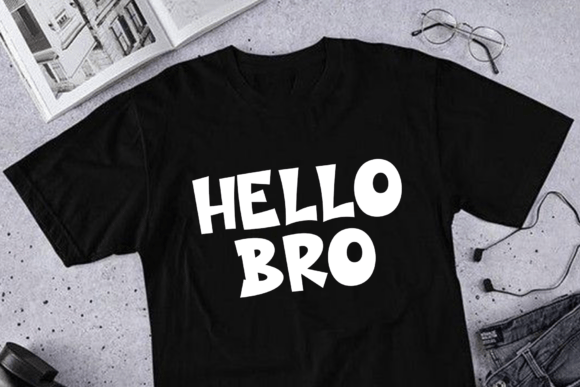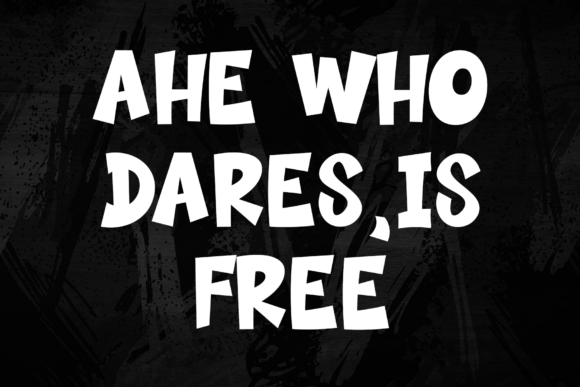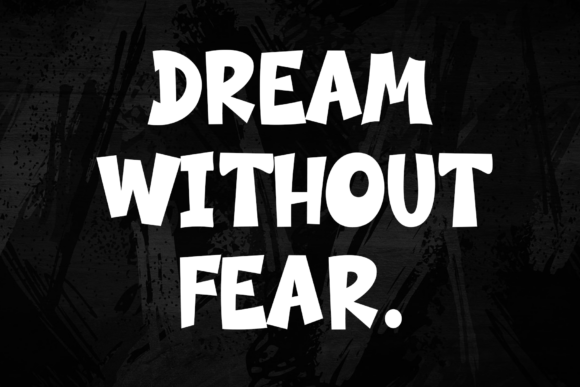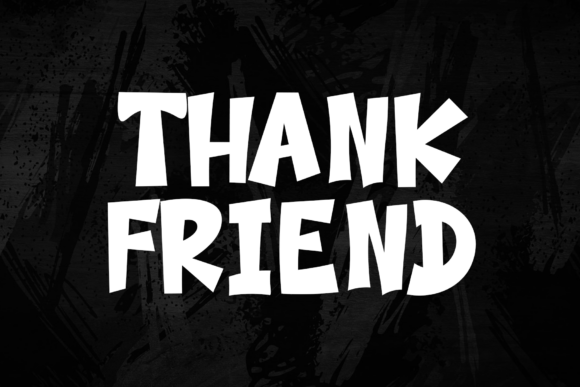
Introducing Bold Font: The Perfect Holiday Companion for Designers and Crafters
Are you looking for a font that embodies the joy and warmth of the holiday season? Look no further than Bold Font, a playful and cheerful handwritten display font that’s sure to bring a smile to your face. With its rounded strokes and casual, friendly style, this font is perfect for a variety of holiday projects, from Christmas cards and festive invitations to kids’ projects and seasonal branding.
The Charm of Bold Font
Bold Font is more than just a font – it’s an experience. Its whimsical and inviting style is sure to transport you to a winter wonderland of joy and magic. The font’s rounded strokes and casual, friendly style give it a handmade feel that’s perfect for creating holiday projects that feel personal and special. Whether you’re designing for Santa’s workshop or a cozy holiday ad, Bold Font adds a lighthearted and magical touch to your typography.
Bold Font is incredibly versatile, making it perfect for a wide range of holiday projects. Here are just a few ideas to get you started:
- Christmas cards: Add a personal touch to your holiday cards with Bold Font’s cheerful and playful style.
- Festive invitations: Invite friends and family to join in the holiday fun with Bold Font’s fun and festive invitations.
- Kids’ projects: Bold Font is perfect for kids’ holiday projects, such as making holiday crafts or creating festive decorations.
- Seasonal branding: Add a touch of holiday magic to your brand with Bold Font’s whimsical and inviting style.
Why Choose Bold Font?
So why choose Bold Font for your holiday projects? Here are just a few reasons:
- Unique and eye-catching: Bold Font is a one-of-a-kind font that’s sure to grab attention and add a touch of personality to your holiday projects.
- Easy to read: Despite its playful style, Bold Font is incredibly easy to read, making it perfect for use in a variety of holiday projects.
- Versatile: Bold Font can be used in a wide range of holiday projects, from formal invitations to festive decorations.
- Fun and festive: Bold Font embodies the joy and warmth of the holiday season, making it the perfect choice for any holiday project.
Tips for Using Bold Font
Here are a few tips for getting the most out of Bold Font:
- Use it sparingly: While Bold Font is perfect for headlines and titles, it’s best to use it sparingly to avoid overwhelming your design.
- Pair it with other fonts: Bold Font pairs perfectly with a variety of other fonts, so don’t be afraid to experiment and find the perfect combination for your holiday project.
- Experiment with colors: Bold Font looks great in a variety of colors, so don’t be afraid to get creative and try out different color schemes.
Bold Font is the perfect companion for designers and crafters looking to add a touch of holiday magic to their projects. With its playful and cheerful style, this font is sure to bring joy and warmth to any holiday project. Whether you’re designing for Santa’s workshop or a cozy holiday ad, Bold Font is the perfect choice for spreading holiday cheer.